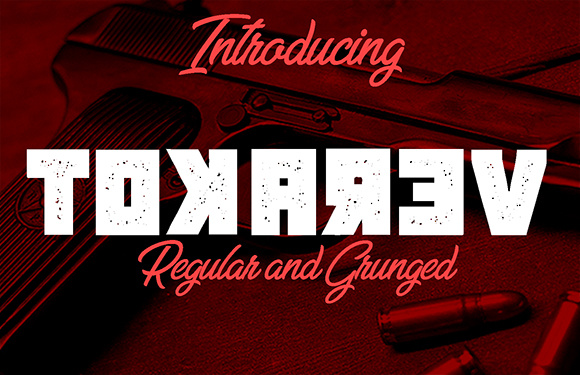
Journey into the realm of typographic excellence with Tokarev Font, a display font family that embodies the captivating spirit of Russian design. Inspired by the rich heritage and bold aesthetics of Russian art, Tokarev Font stands as a testament to the power of visual communication. Its distinct and striking letterforms are meticulously crafted to deliver an unparalleled visual experience, leaving a lasting impression on your audience.
Unleash your creativity with the Regular version of Tokarev Font, where sharp edges and dynamic curves dance in perfect harmony. This font exudes a sense of modernity and sophistication, making it the perfect choice for creating striking posters, eye-catching banners, and impactful t-shirts. Its clean lines and bold presence demand attention, ensuring your message cuts through the noise and resonates with your audience.
For those seeking a touch of edginess and a hint of intrigue, the Grunged version of Tokarev Font awaits. This variant embraces the beauty of imperfections, featuring distressed textures and weathered effects that add a captivating layer of depth and character to your designs. Unleash your inner rebel and let the Grunged version of Tokarev Font elevate your projects to new heights of visual appeal.
Whether you're a seasoned designer or just starting your creative journey, Tokarev Font offers an accessible and versatile tool to transform your ideas into stunning realities. Its intuitive design and user-friendly features make it the perfect companion for a wide range of projects, from personal designs to professional endeavors.
Tokarev Font is more than just a collection of letters; it's an invitation to embark on a creative odyssey, where your imagination takes center stage. Its captivating aura and boundless potential will ignite your passion and empower you to craft designs that leave a lasting mark.